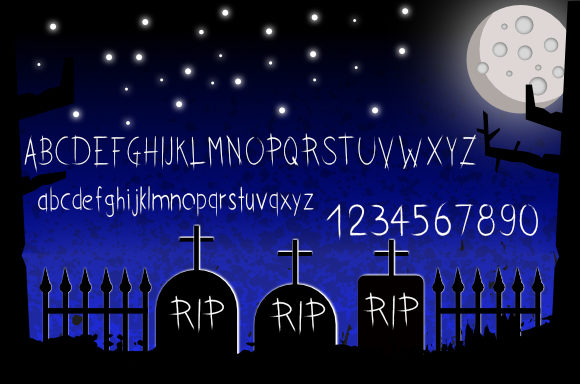
Friedhof Font: The Spooky and Unique Handwritten Font for Designers and Crafters
As a designer or crafter, you’re always on the lookout for fonts that can add a touch of personality and uniqueness to your projects. If you’re looking for a font that can evoke a sense of spookiness and eeriness, then Friedhof Font is the perfect choice. Not only is it ideal for Halloween lovers, but it’s also a great addition to any design project that requires a weird and scary twist.
What is Friedhof Font?
Friedhof Font is a handwritten font that features a spooky and unique design. The font is inspired by traditional German gravestones and has a distinctive look that sets it apart from other fonts. The letters are intricately designed to resemble the stone carvings found on old gravestones, giving the font a creepy and eerie feel.
Key Features of Friedhof Font
- Unique and Spooky Design: Friedhof Font features a one-of-a-kind design that’s perfect for adding a touch of spookiness to any project.
- Handwritten Style: The font has a handwritten style that gives it a personal and organic feel.
- Inspired by Traditional German Gravestones: The font is inspired by traditional German gravestones, adding a touch of history and culture to your designs.
- Perfect for Halloween and Horror-themed Projects: Friedhof Font is ideal for Halloween and horror-themed projects, but it’s also versatile enough to be used in other design projects.
How to Use Friedhof Font in Your Designs
Friedhof Font is a versatile font that can be used in a variety of design projects. Here are some ideas to get you started:
- Halloween and Horror-themed Projects: Use Friedhof Font to create spooky and eerie designs for Halloween and horror-themed projects, such as invitations, posters, and flyers.
- Wedding and Event Invitations: Add a touch of uniqueness and personality to your wedding and event invitations with Friedhof Font.
- Logos and Branding: Use Friedhof Font to create a unique and memorable logo for your business or brand.
- Crafting and Scrapbooking: Friedhof Font is perfect for crafters and scrapbookers who want to add a touch of personality to their projects.
Tips for Getting the Most out of Friedhof Font
Here are some tips for getting the most out of Friedhof Font:
- Experiment with Different Sizes and Colors: Friedhof Font looks great in different sizes and colors, so don’t be afraid to experiment and find the perfect combination for your project.
- Pair it with Other Fonts: Friedhof Font pairs well with other fonts, so try pairing it with a sans-serif font for a unique and interesting contrast.
- Use it in Combination with Images: Friedhof Font looks great in combination with images, so try using it to add a touch of personality to your photos and illustrations.
Friedhof Font is a unique and spooky handwritten font that’s perfect for designers and crafters who want to add a touch of personality to their projects. With its distinctive design and versatile usage, Friedhof Font is a great addition to any design project. Whether you’re working on a Halloween-themed project or just want to add a touch of weirdness to your design, Friedhof Font is the perfect choice.